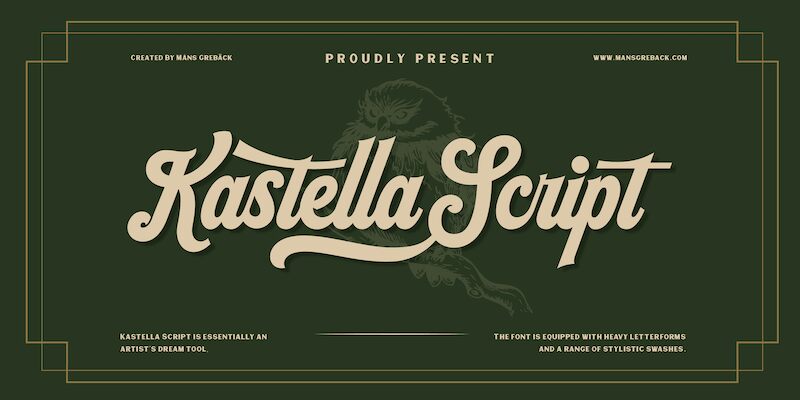
Kastella Script breathes life into the art of calligraphy with its fluid, dynamic curves and elegant swashes. Designed by Mans Greback, a connoisseur of typography, this font is a testament to the harmonious blend of traditional script writing with contemporary flair. It is meticulously crafted to convey a sense of sophistication and energy, making it an ideal choice for graphic designers who wish to infuse a classic American vibe with a sporty aesthetic into their projects.
The font's sweeping lines and variable stroke weights offer an aesthetic appeal that stands out in logos, branding materials, and exquisite title treatments. Kastella Script's versatility extends beyond just appearances; its stylish demeanor can elevate any creative work—from fashion labels to event invitations or even personalized merchandise.
This font not only promises visual impact but also ensures your design communicates with grace and style. Whether you're looking to create a timeless logo or add character to promotional materials, Kastella Script offers endless possibilities for designers seeking both elegance and exuberance in their typography choices.
Use underscore _ to make an underline.
Example: Bea_uty
Use multiple underscore for different swashes.
Example: Super____human